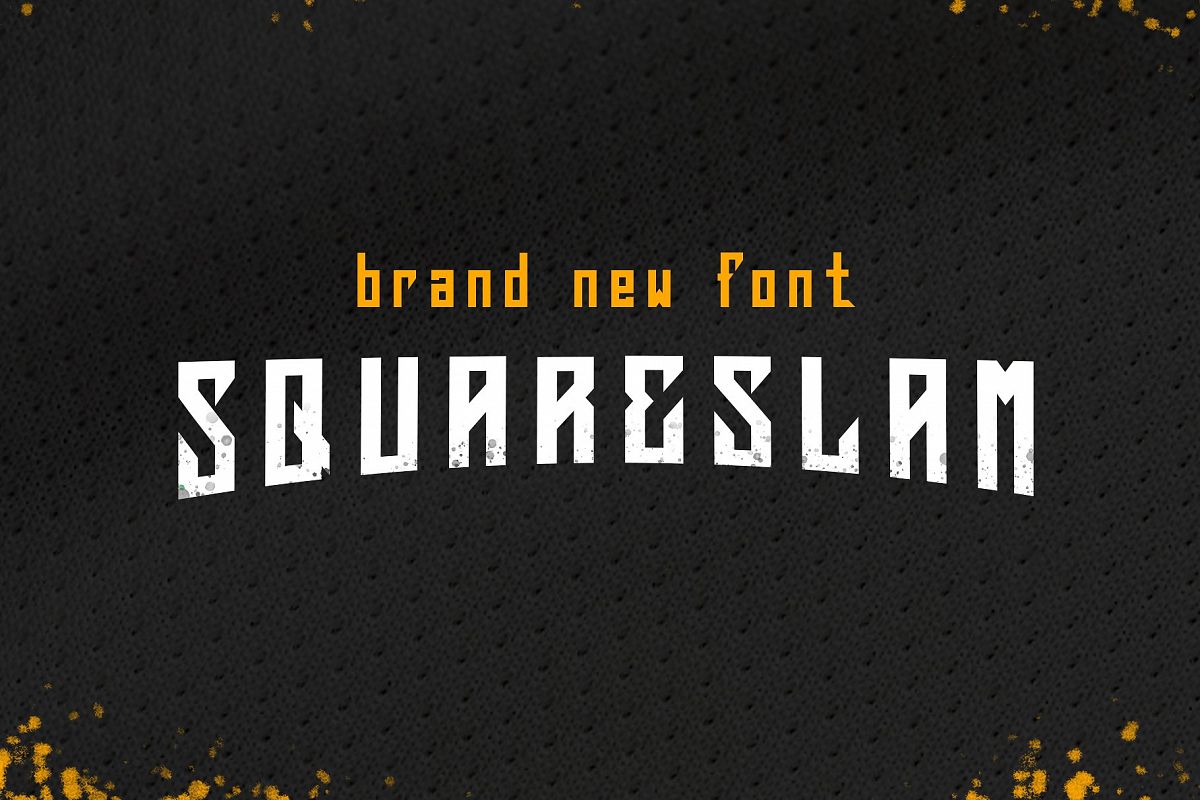
Squareslam sports and esports font
Squareslam
Squareslam font, is our new item that suitable for your team logo, or community logo
Great for
Birthday, album cuts, scrapbook, card design,crafts,
invitation,weddings, stickers, jewelry, paper crafts, personal web site /
blog, party tags, invites, cupcake toppers, and any craft project!